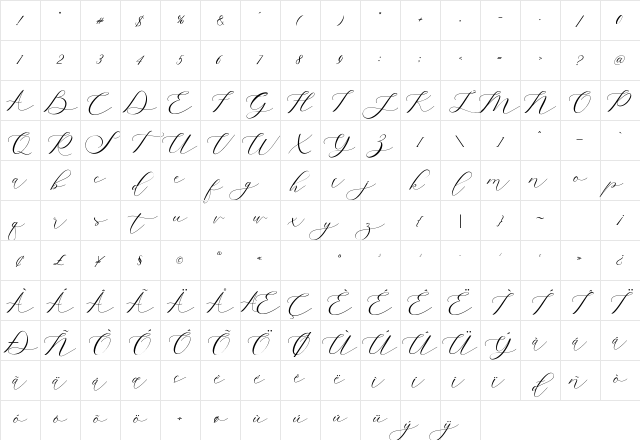
Belights Regular
Foundry: Hans Co
Designer: Burhan Afif
Complete Belights Regular glyph index. Displaying only characters natively supported by Belights Regular font.
Design Context for Belights
Belights is a composed and adaptable typeface that performs quietly and consistently across a wide range of design contexts. Its slender proportions lend an understated elegance to any composition.